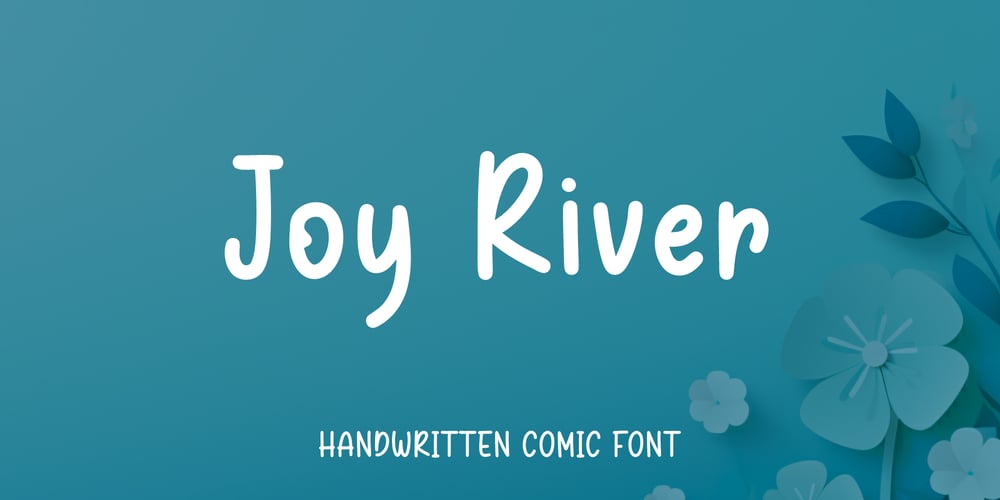
Joy River Font Family was designed by Agustian Eko Saputro, Aprilia Nurina Putri and published by Mightyfire. Joy River contains 1 styles and family package options. Introducing Joy River, a delightfully quirky handwritten font that adds a playful and charming touch to your designs. This whimsical typeface captures the essence of spontaneity and creativity, as if each character were penned by an imaginative hand with a penchant for the unconventional.Whether you’re designing invitations, greeting cards, or adding a personal flair to your branding, Joy River ensures that your message is delivered with a unique and memorable charm. Its handcrafted feel brings a human touch to digital creations, inviting viewers to engage with the text on a more personal level.